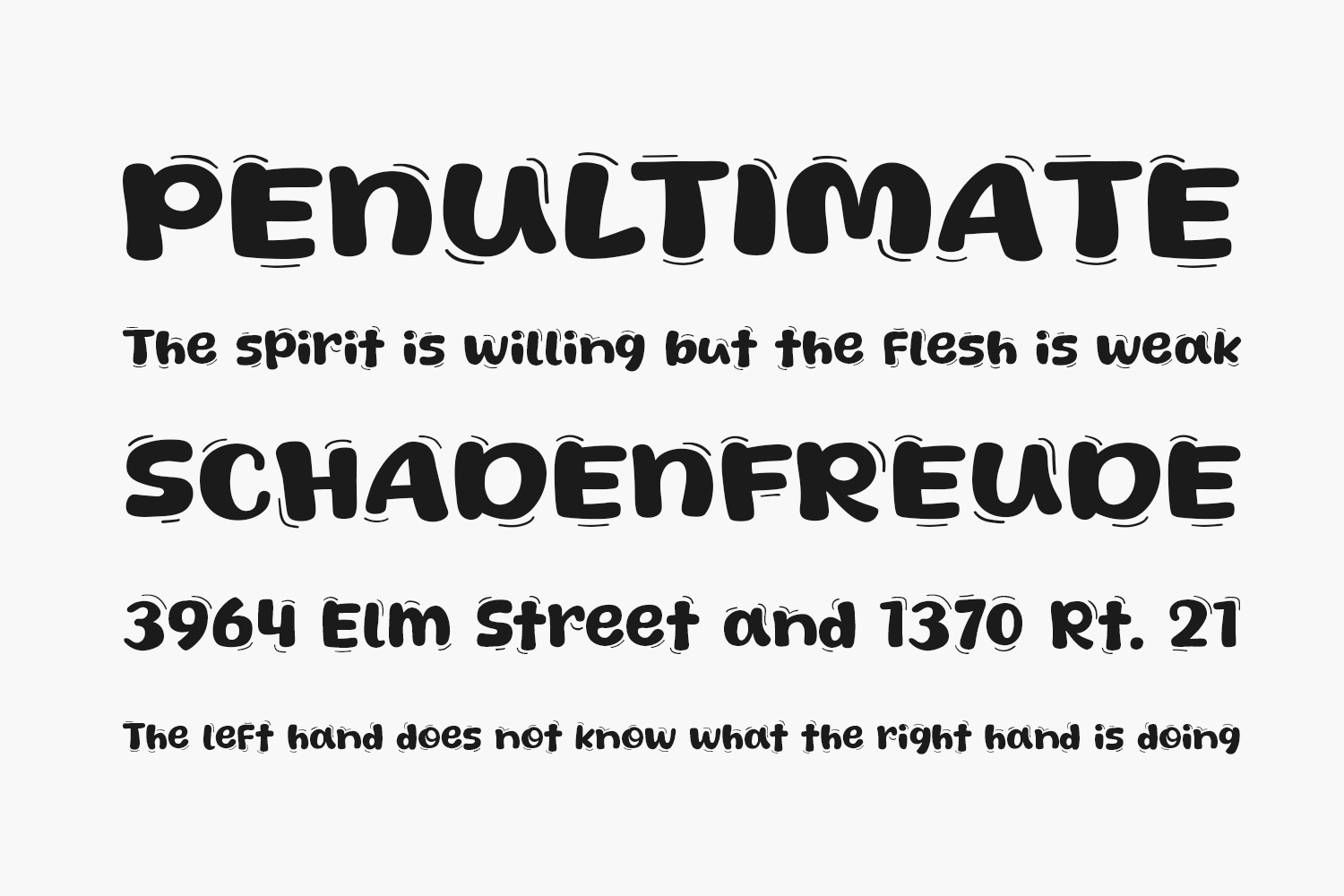
Coffee Spark Free Font – Charming Display Typeface for Coffee & Lifestyle Design
Coffee Spark is a modern and charming display font designed by Khurasan to bring warmth and personality to your creative projects. With its smooth curves, expressive letterforms, and stylish appearance, this free decorative typeface works perfectly for crafting cozy café logos, menu headers, lifestyle branding, book covers, and more. Available in TTF and OTF formats with support for Latin characters — ideal for designers seeking a versatile font that blends elegance with accessibility.
Why Choose Coffee Spark?
- Charming Style: Combines playful shapes with elegant strokes for a warm, inviting appearance.
- Ideal for Café Branding: Perfect for coffee shops, bakery labels, or lifestyle brands needing a friendly tone.
Where to Use Coffee Spark?
Coffee Spark shines across a variety of creative applications:
- Logos & Branding: Adds warmth to brand identities of cafés, bakeries, or artisanal goods stores.
- Book Covers & Titles: Perfect for novel titles, journals, greeting cards, or quote-based designs.
- Social Media Graphics: Creates bold text overlays for Instagram Stories, Pinterest pins, TikTok videos.
- Packaging Design: Brings charm to product labels on mugs, candles, notebooks, or handmade crafts.
- Magazine & Blog Headers: Stands out in editorial layouts with a soft, approachable visual tone.
Design Tips with Coffee Spark